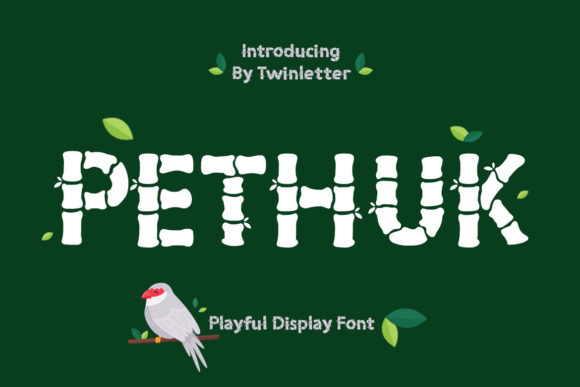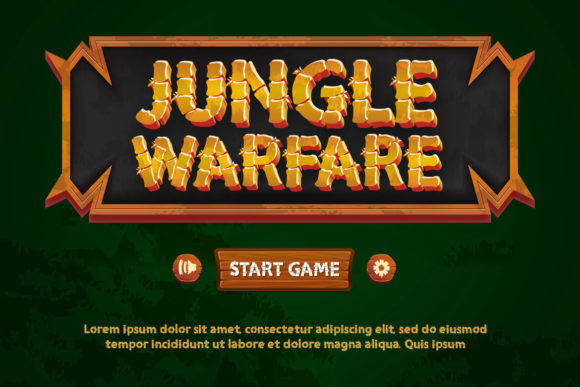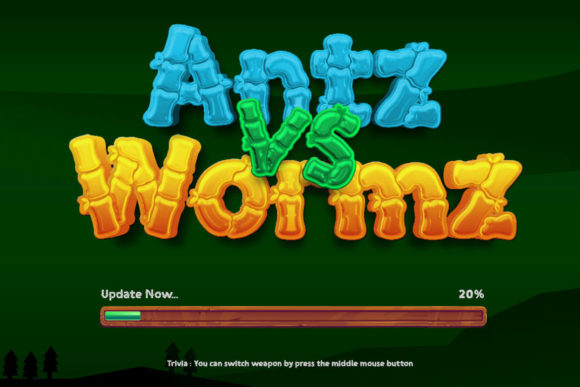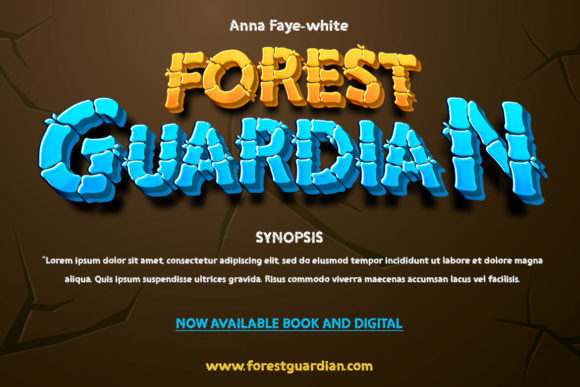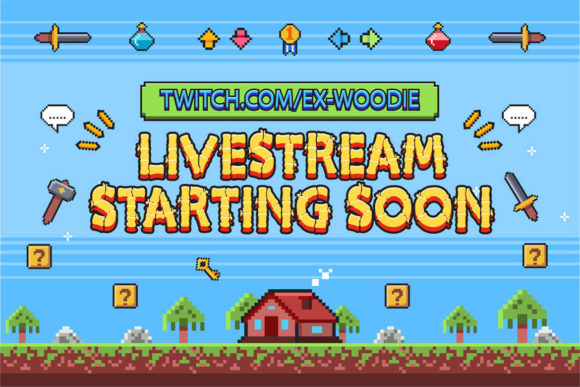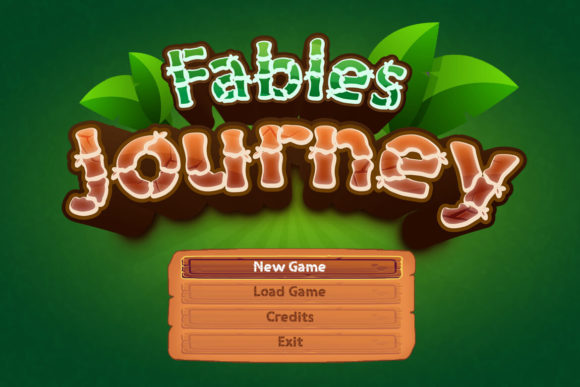
Introduction to Pethuk Font
Pethuk is a playful and fun display font.
Whether you use it for cartoon related designs, children games or just any creation that requires a lovely touch, this font will be an amazing choice .